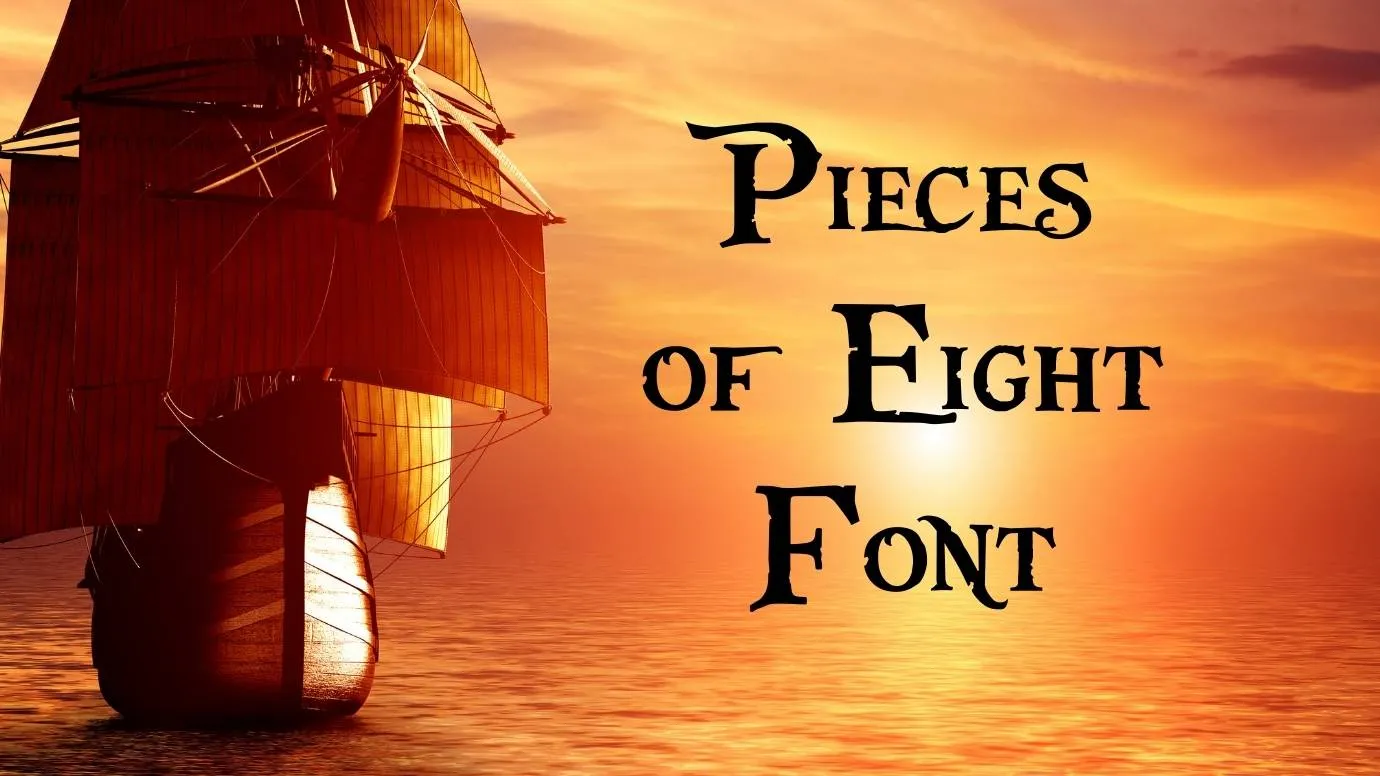
Pieces of Eight Font Family was designed by famous designer Steve Ferrera. It has many styles including 2 weights and 110 glyphs. This texture is famous in the typeface family due to its good spacing of characters.
Pieces Of Eight Font